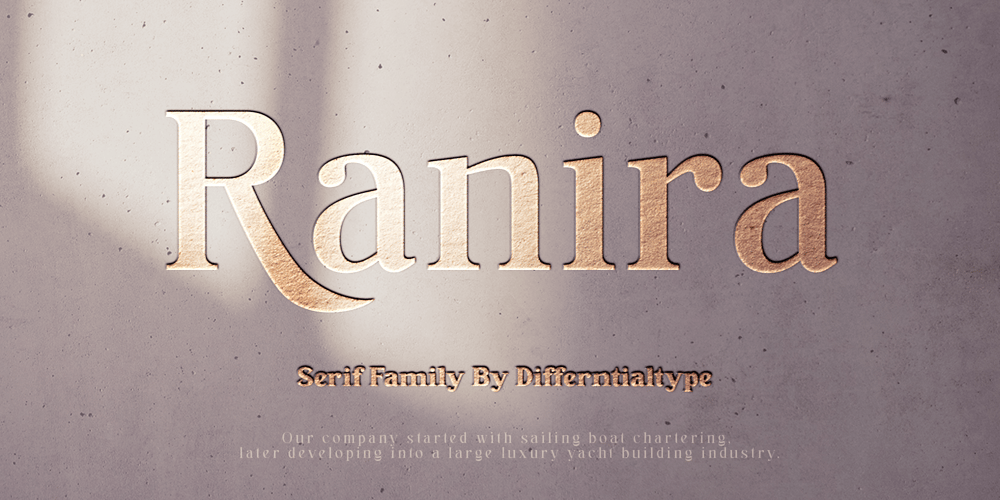
Ranira Font Family was designed by Sidik Sidik and published by Differentialtype. Ranira contains 14 styles and family package options. Ranira is a modern serif typeface. It is suitable for typing on documents and can also be used for display fonts, suitable for logotypes, titles, captions, and more. Ranira comes with 7 weights and 14 styles. Ranira is also equipped with alternates and ligatures.